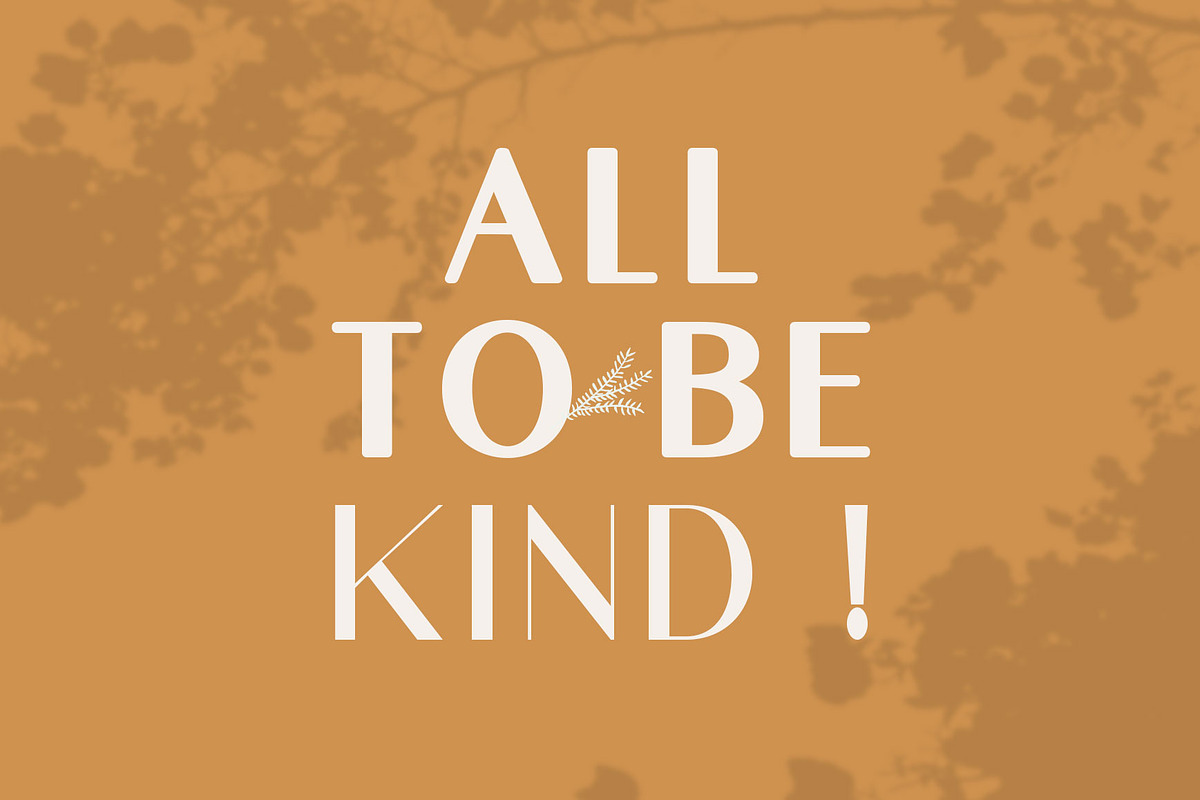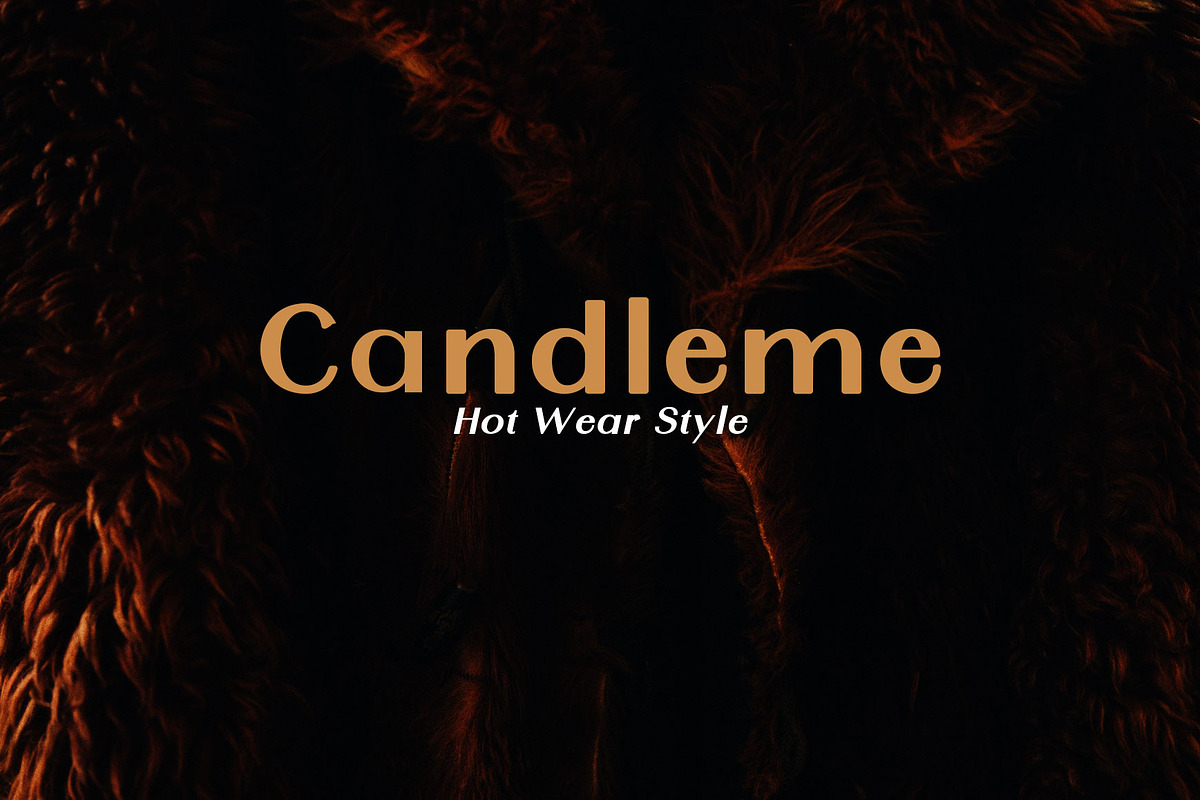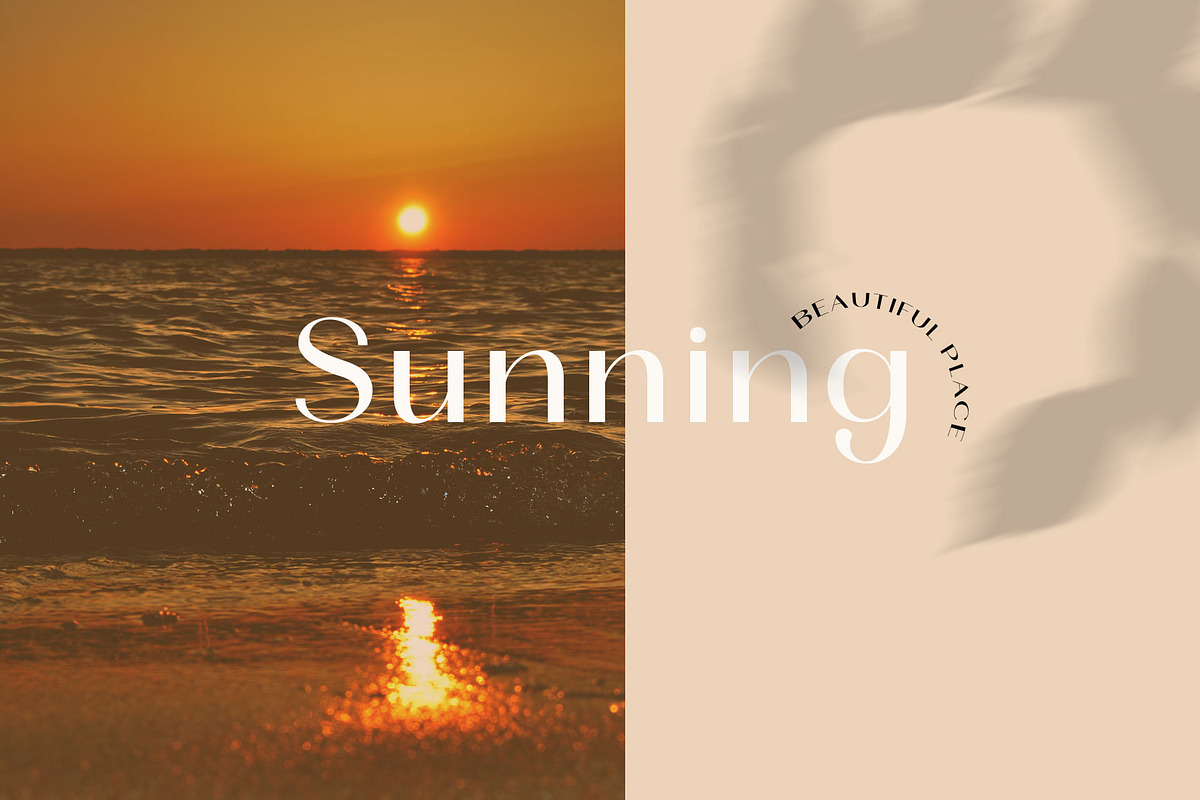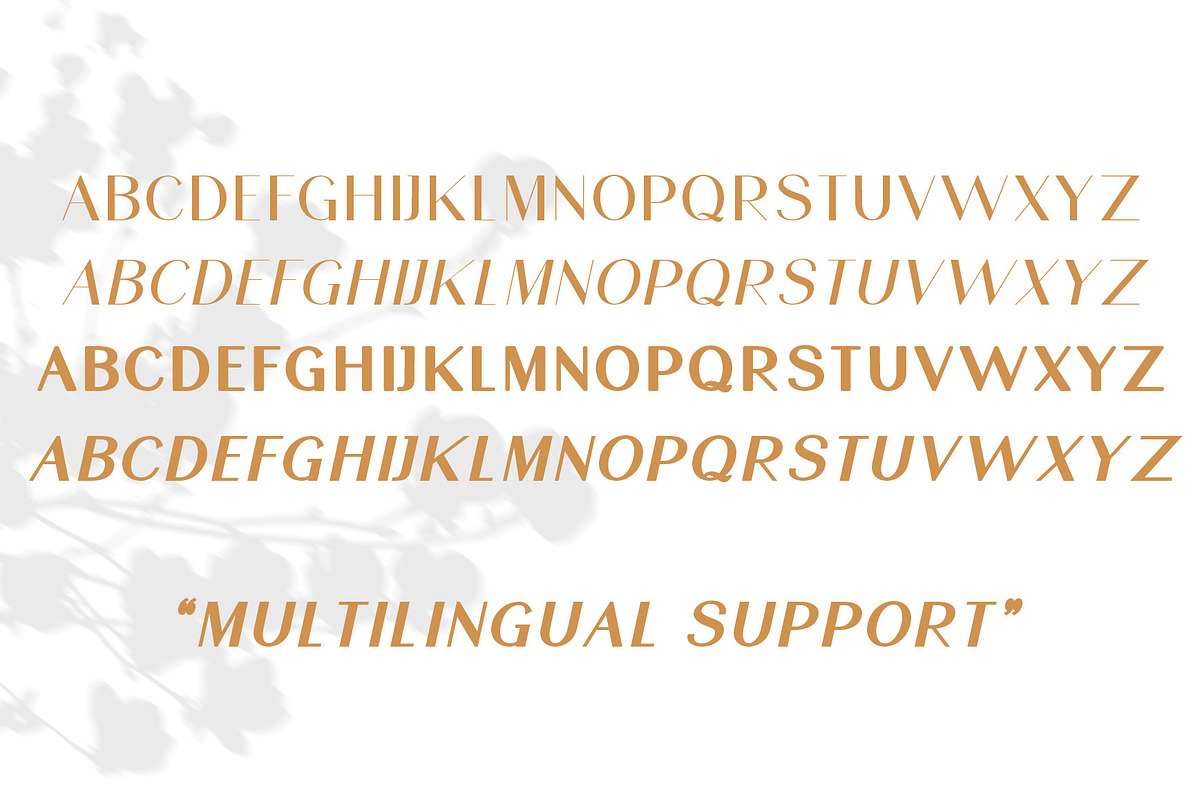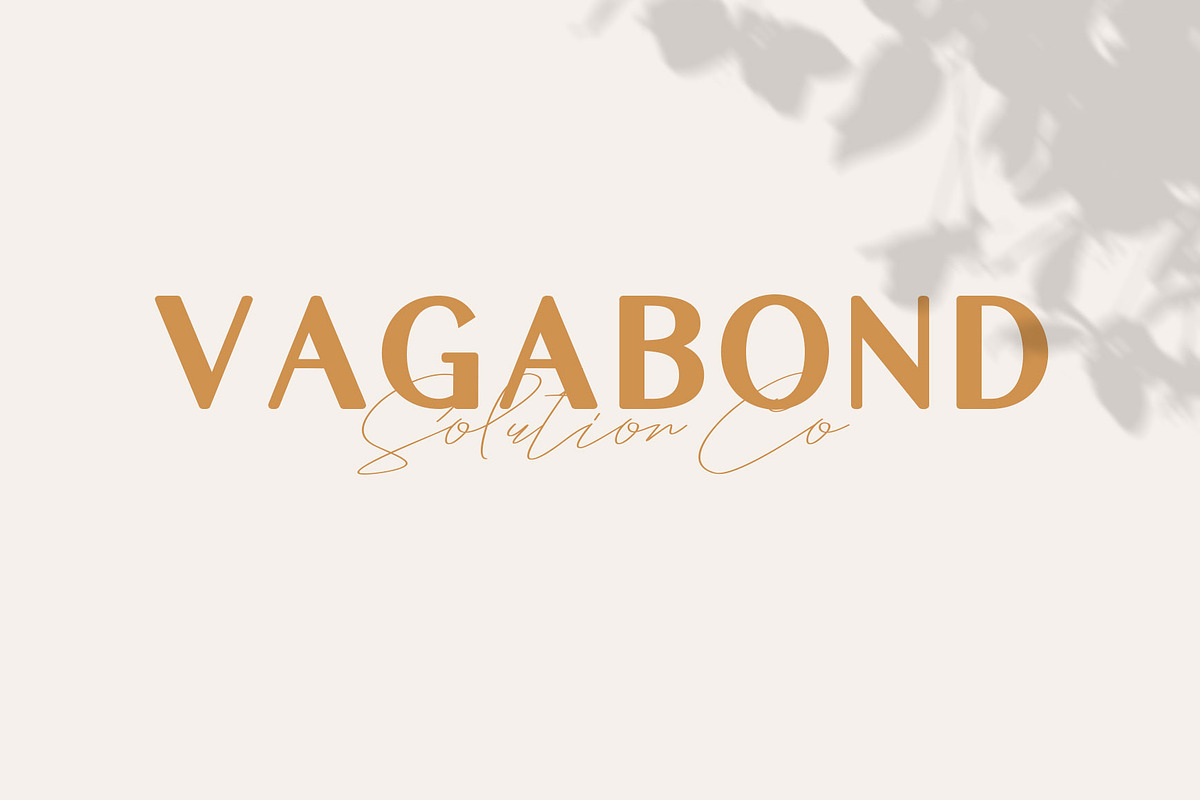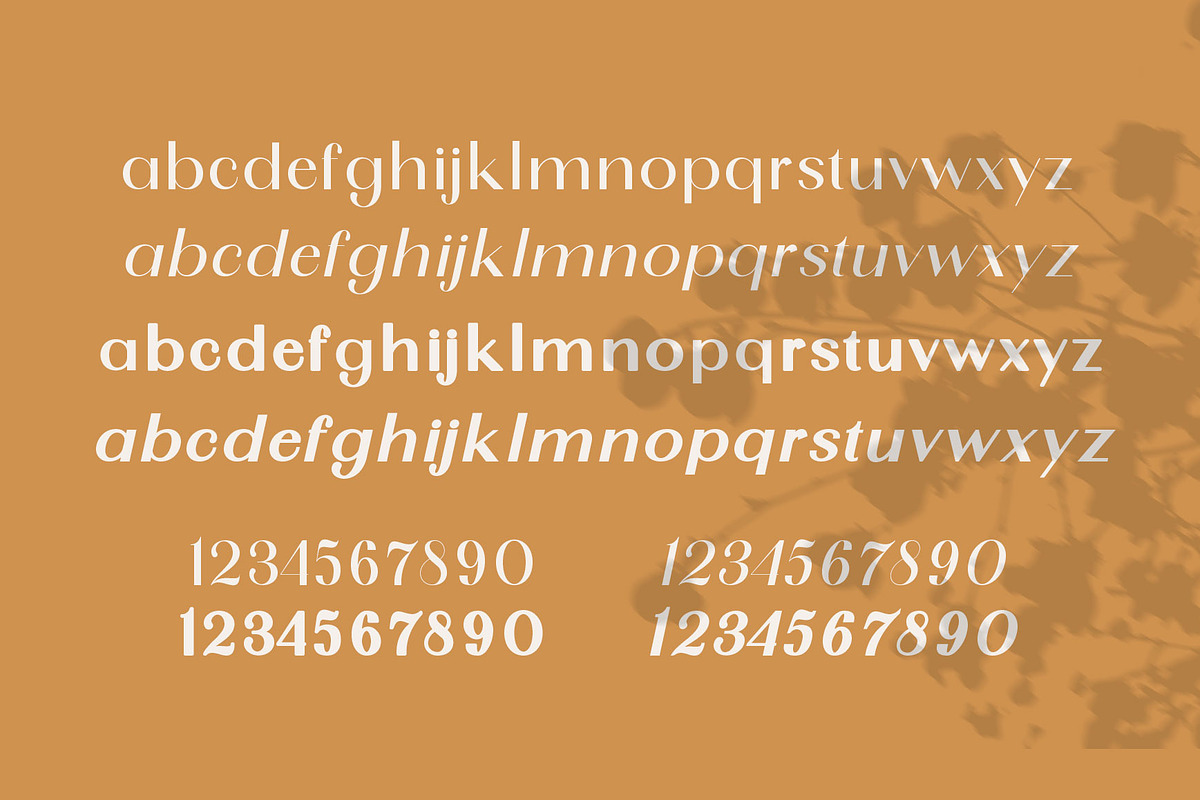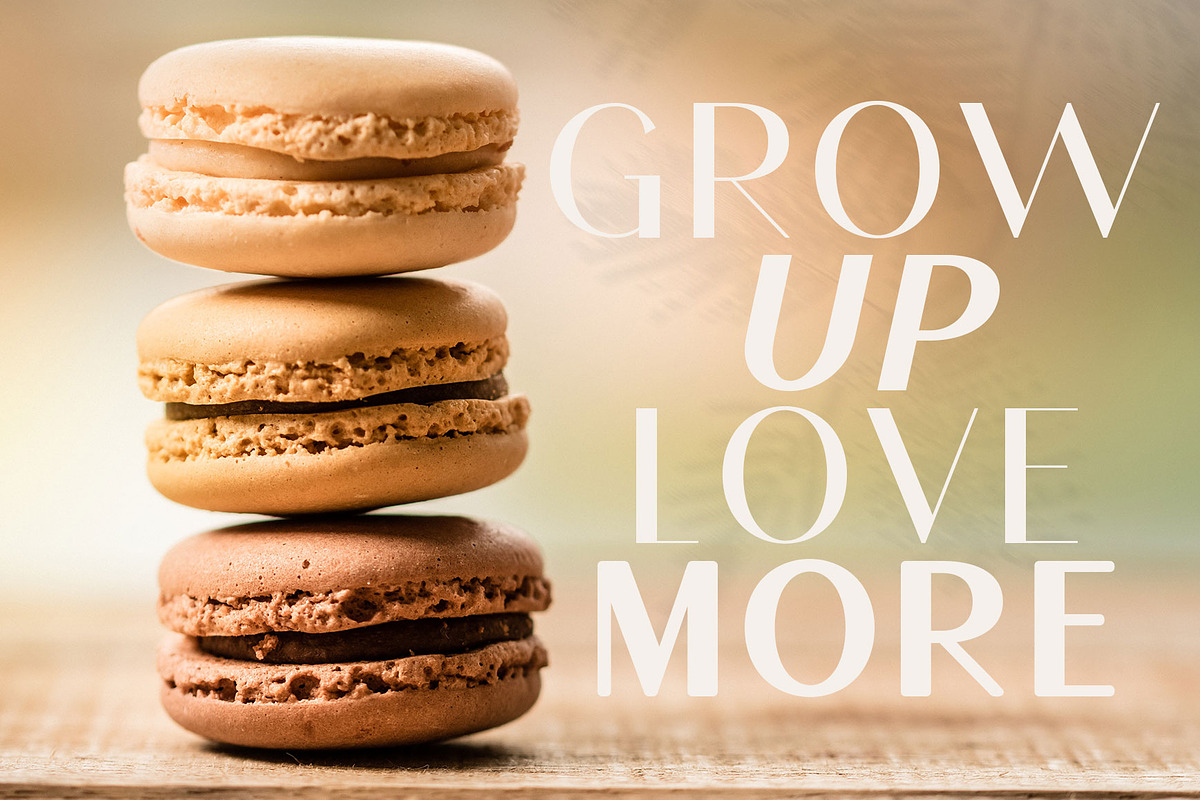
SunGold - Font Family
SunGold is sans serif font family with a warm, engaging character. SunGold's contrasting lines and curved terminals give a sleek, elegant look to logos, holiday cards, wedding invitations, quotes, advertisements, and more. SunGold is a versatile typeface that's full of character and one you'll come back to time and again. Create something beautiful today with SunGold.
Multilingual support for various languages including: French, German, Spanish, Portuguese, Italian, Dutch, Finnish, Swedish, and more.